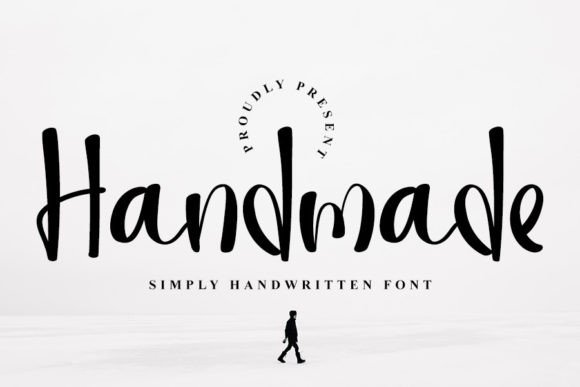
A Neat and Elegant Handwritten Typeface
Handmade Font is a neat and beautiful handwritten script that captures the essence of elegance and timelessness. Its clean and well-crafted letterforms make it the perfect choice for a variety of projects. With its distinct style and charm, Handmade is sure to bring your designs to life, making them look elegant and refined.
Perfect for Invitations and Special Events
When it comes to invitations, Handmade Font adds an elegant and personal touch. Whether you’re planning a wedding, birthday celebration, or special event, this font’s timeless style creates an atmosphere of grace and sophistication. The clean and beautiful lettering of Handmade enhances the overall aesthetic of your invitations, setting the tone for a memorable occasion.
Great for Greeting Cards
For greeting cards, Handmade Font becomes truly special and heartfelt. Its elegant touch adds a sense of warmth and sincerity to your messages, making them more meaningful. Whether it’s a thank you card, congratulations note, or any other sentiment, Handmade elevates your greetings with its distinct style and elegance, leaving a lasting impression on the recipient.
Ideal for Logos and Branding
Logos and branding materials benefit from Handmade’s neat and timeless look. The font’s clean and well-defined letterforms create a professional and memorable impression, making it a perfect choice for your brand identity. Whether you’re designing a logo, business cards, or marketing materials, Handmade adds a touch of sophistication and uniqueness, helping your brand stand out in a competitive market.
Perfect for Quotes and Typography Designs
When used for quotes and typography designs, Handmade Font comes to life with its distinct style. Its timeless and elegant lettering adds visual interest and impact to your quotes and messages. Whether it’s for social media graphics, posters, or prints, Handmade enhances the design, captivating your audience with its clean and beautiful appearance.
Versatile and Easy to Use
Despite its elegant design, Handmade Font is incredibly versatile and easy to use across various applications. Whether you’re designing greeting cards, logos, invitations, or social media content, this font ensures your designs look polished and professional. Its neat and distinct appearance makes it suitable for both print and digital media, offering you the flexibility to use it in a wide range of design projects.
Add Elegance and Timeless Beauty to Your Designs with Handmade Font
In summary, Handmade Font is a neat and beautiful handwritten typeface that combines elegance and timelessness. Its distinct style and charm make it the perfect choice for a variety of projects, including invitations, greeting cards, logos, branding materials, quotes, and more. Fall in love with Handmade Font’s unique appeal and let it inspire you to create spectacular designs that stand out with clean and beautiful aesthetics.